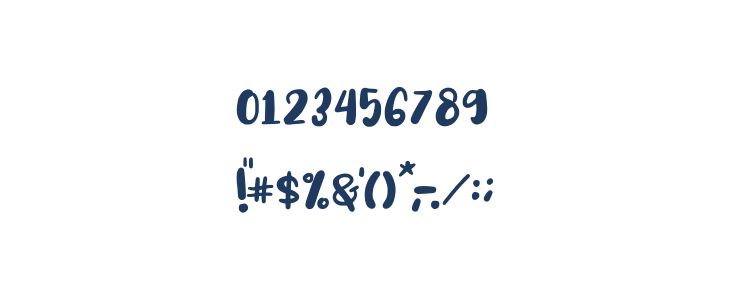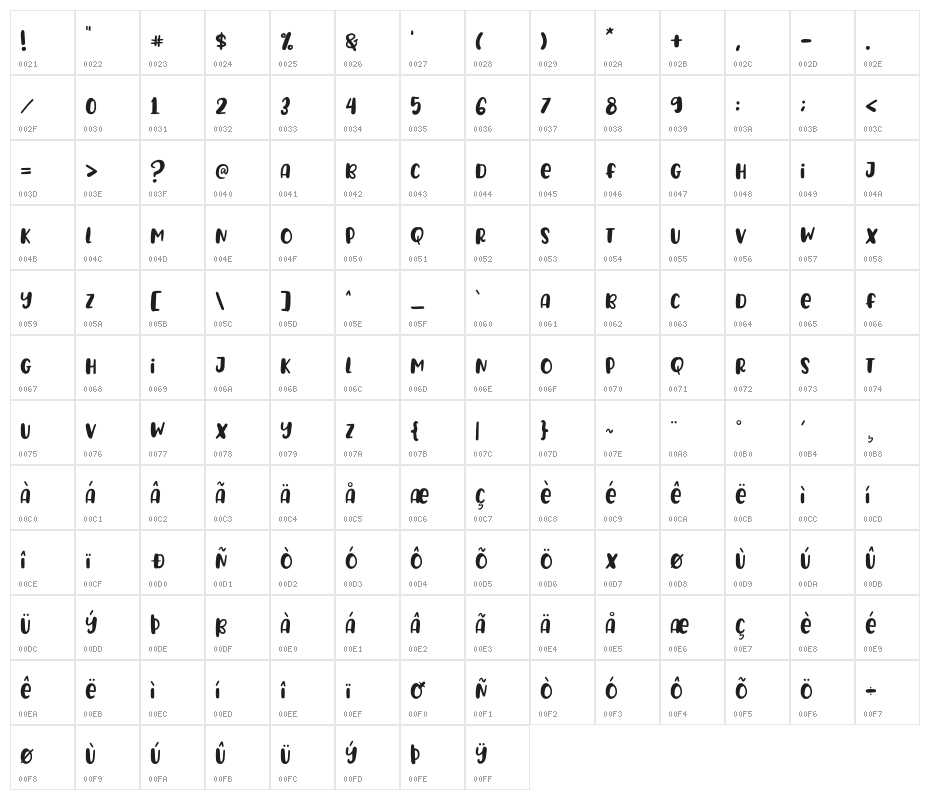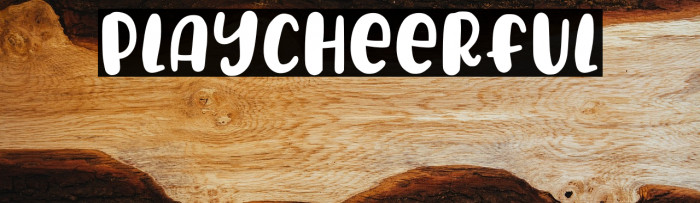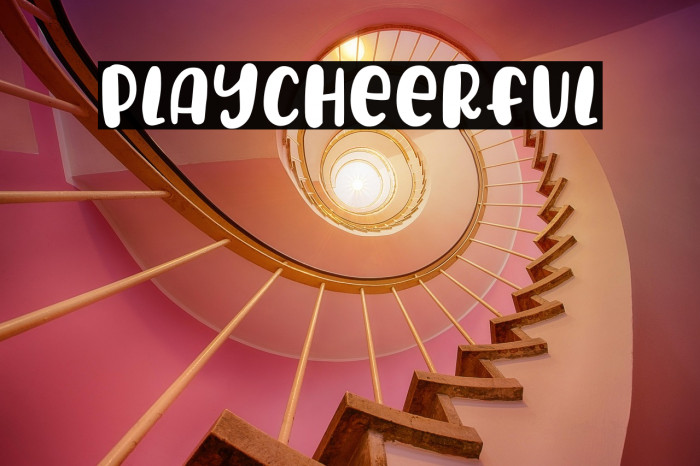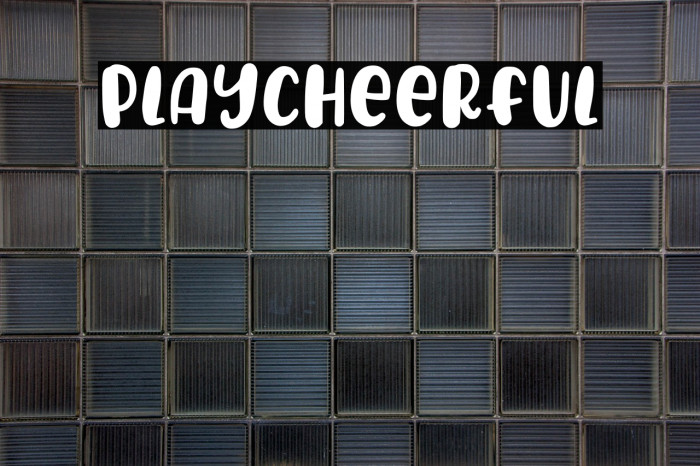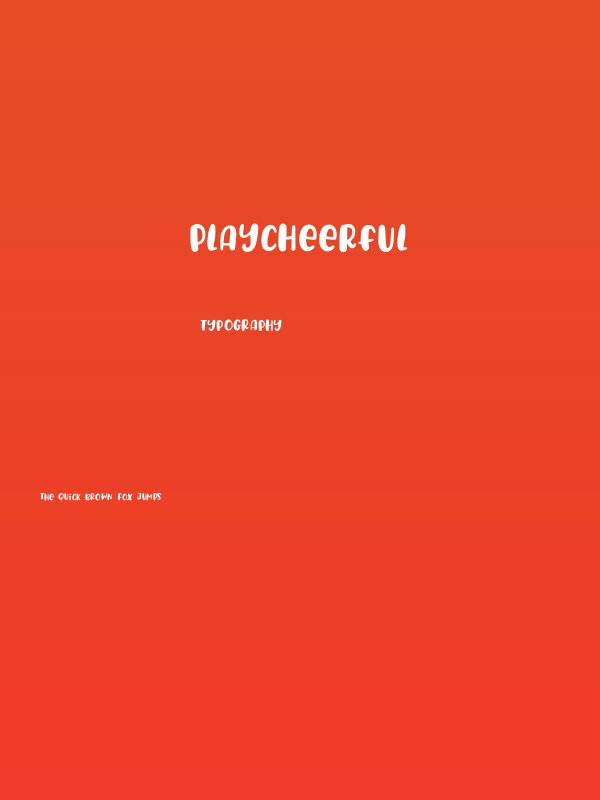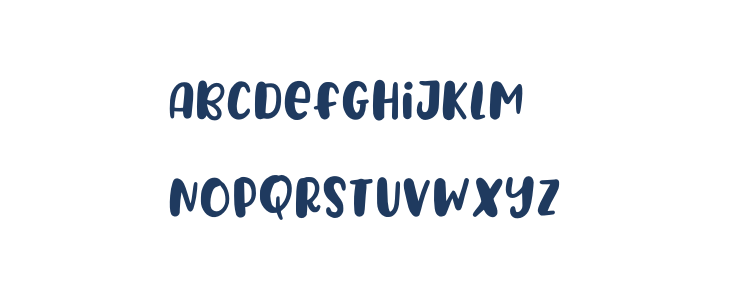
PlayCheerful Font
PlayCheerful Description
This playful and cheerful font features rounded, bold characters with a whimsical touch. The letters have a hand-drawn appearance, giving them a friendly and approachable feel. The strokes are consistent in thickness, providing a uniform look across all characters. The font includes both uppercase and lowercase letters, numbers, and a variety of special characters. Its design is perfect for projects that require a fun and lively aesthetic, making it ideal for children's books, playful branding, or any creative endeavor that seeks to convey joy and positivity.
| Proposed Projects | Ideal for children's books, playful branding, greeting cards, and creative projects. |